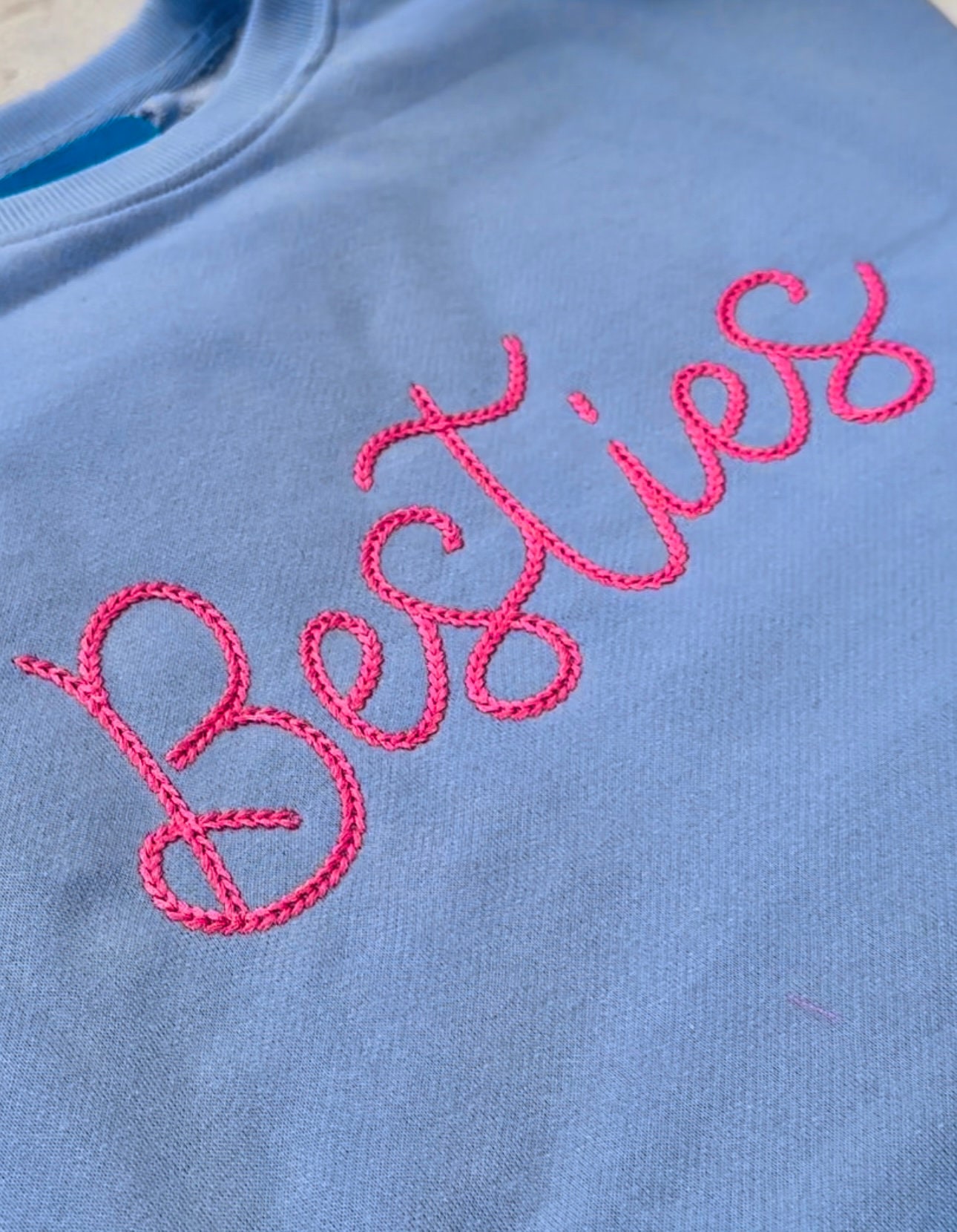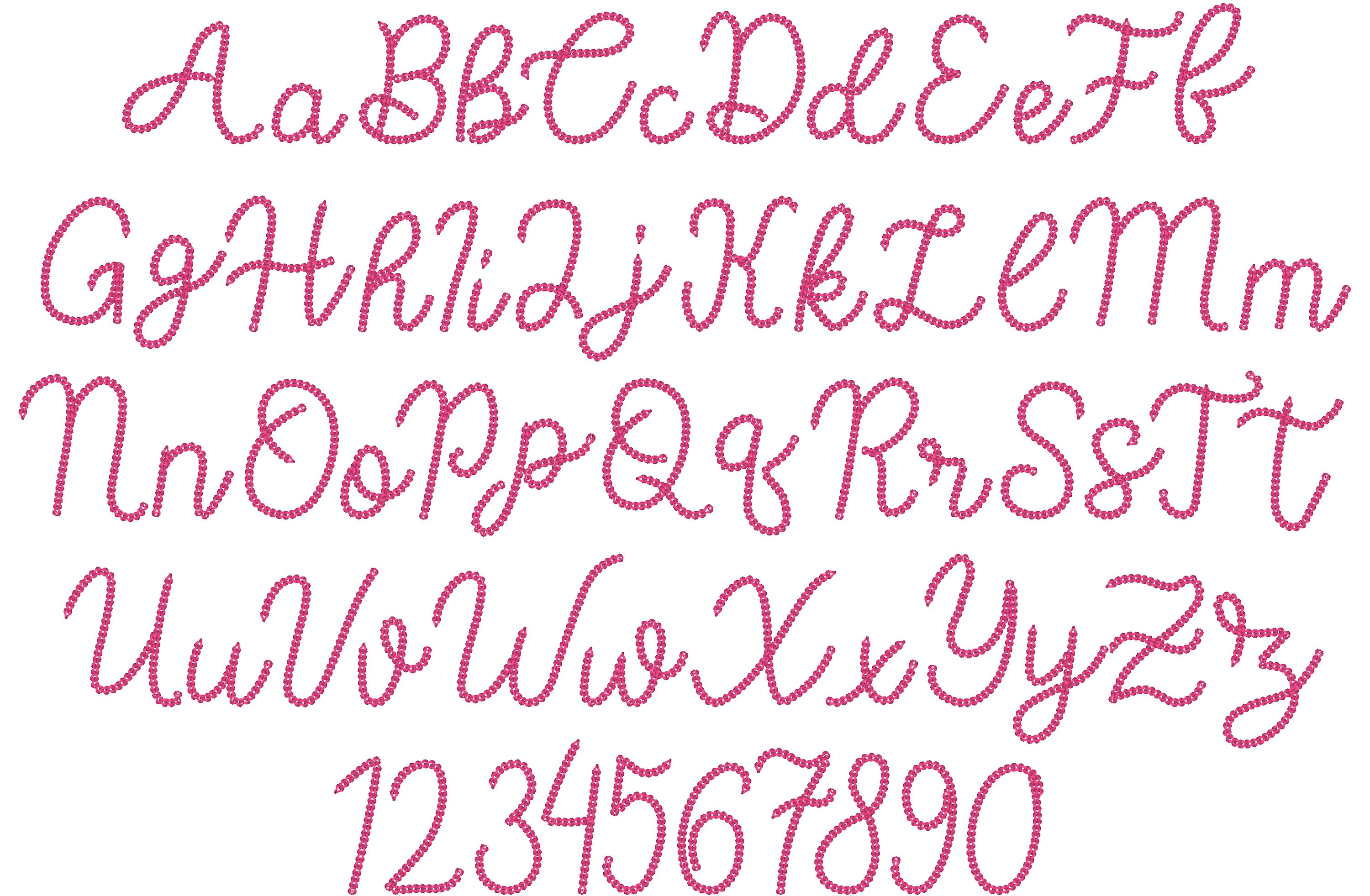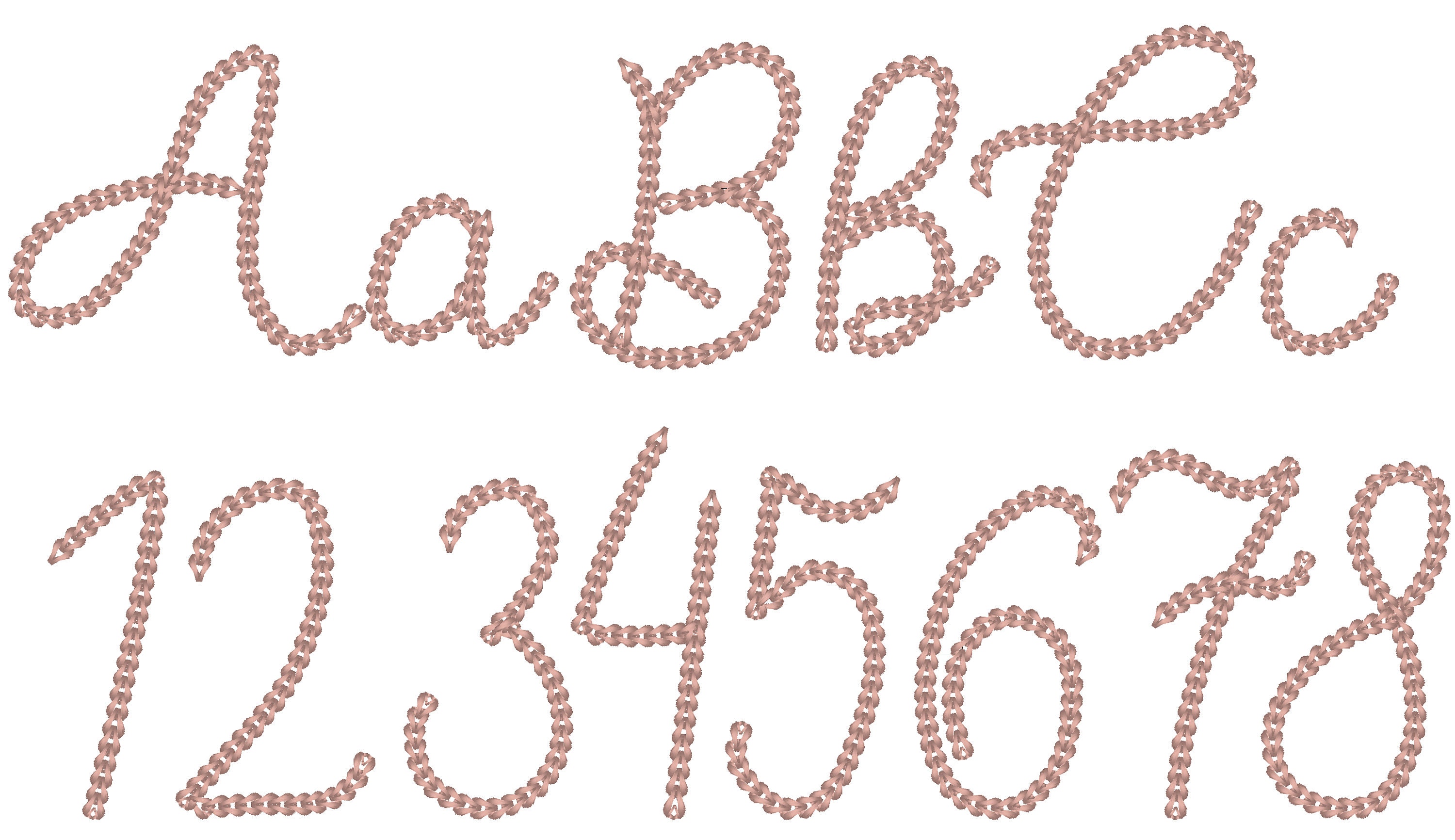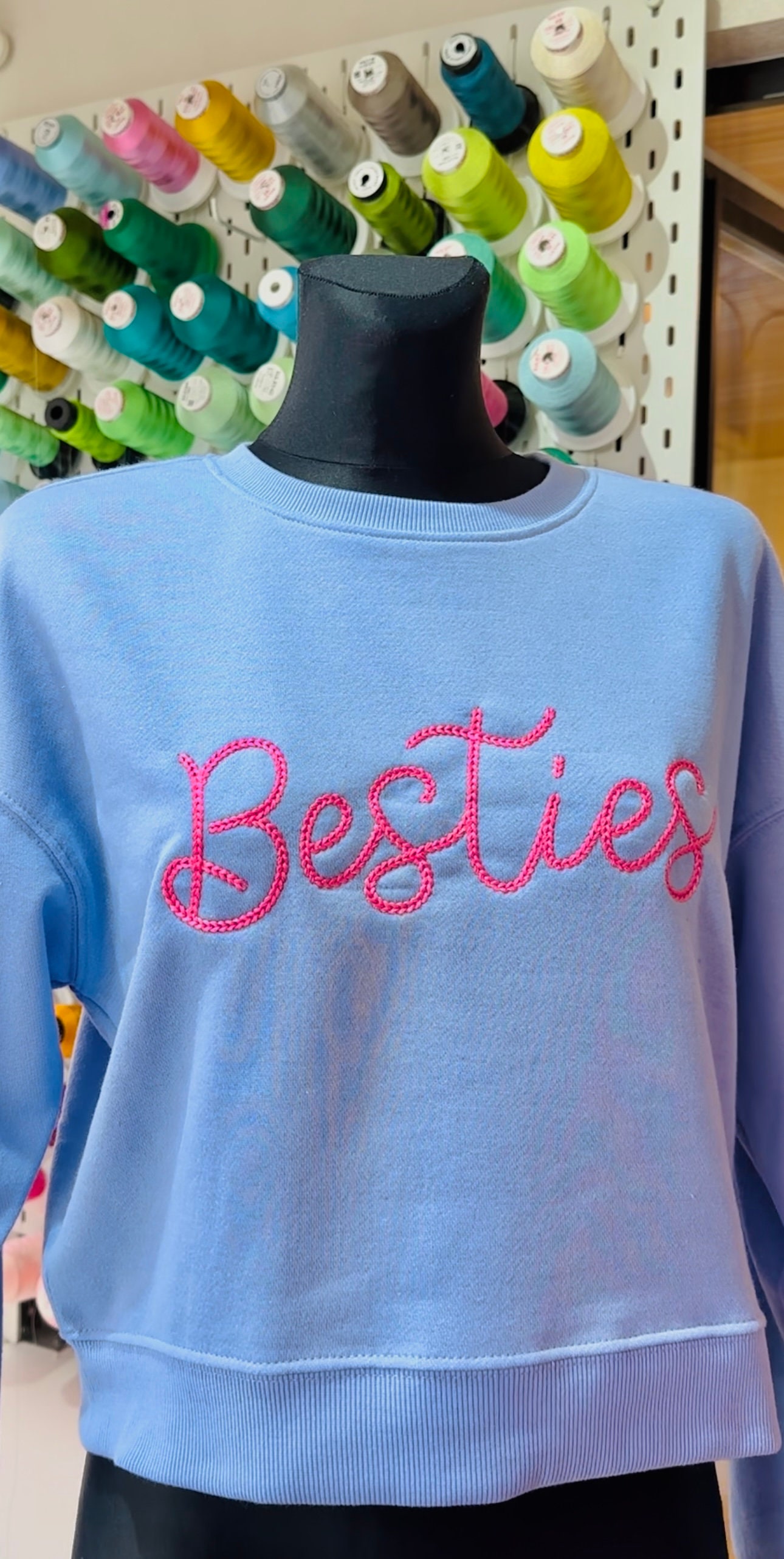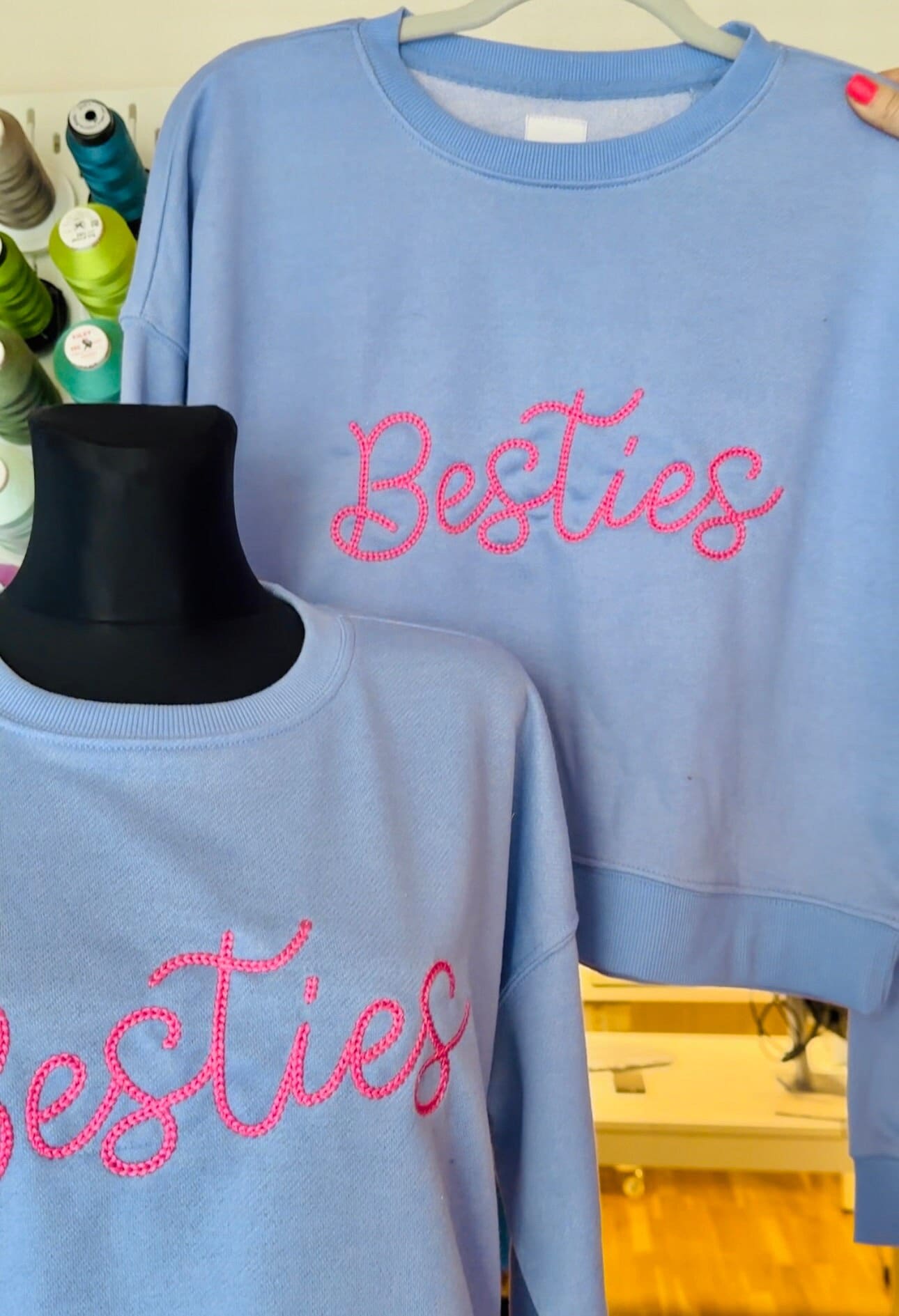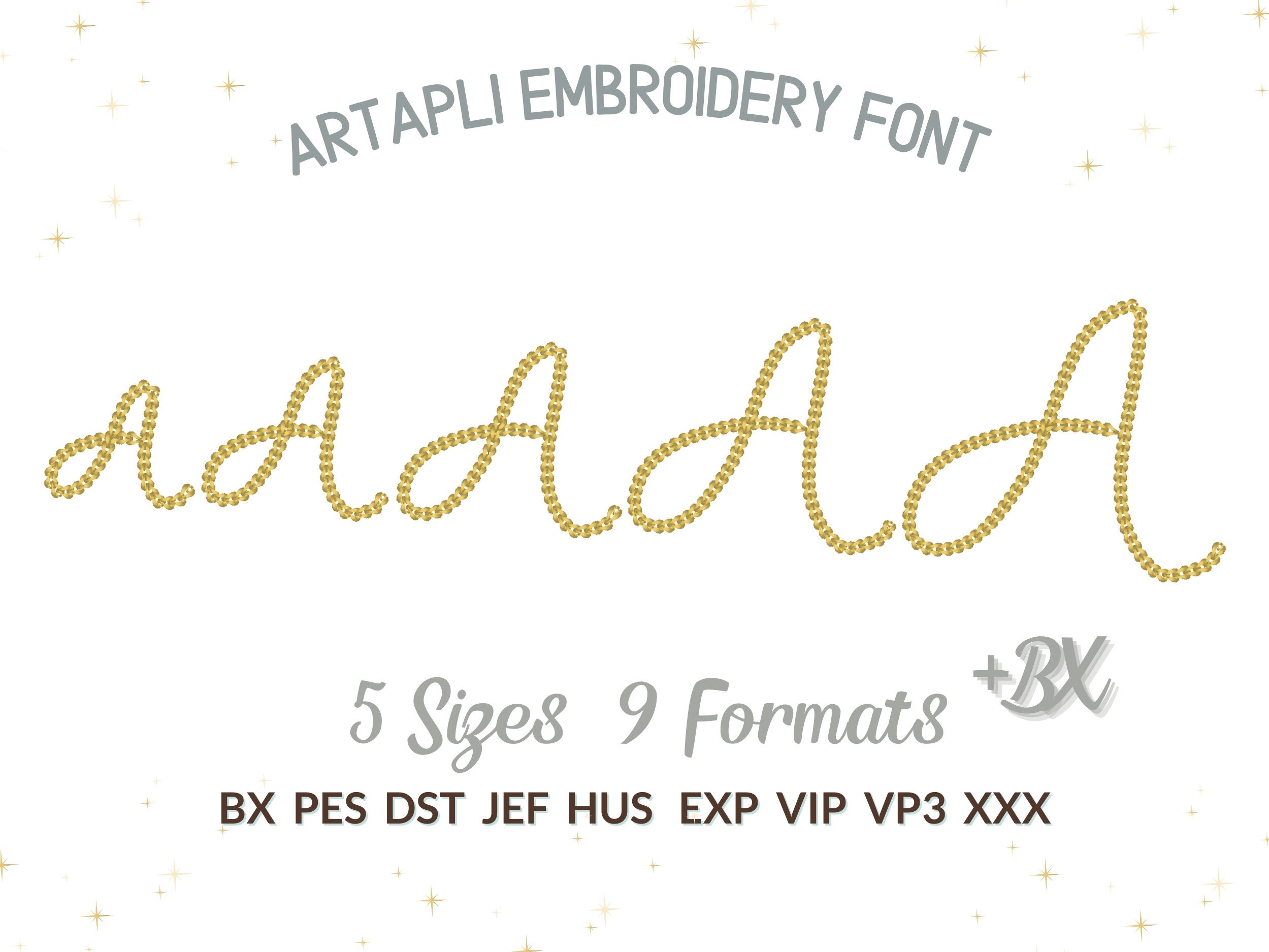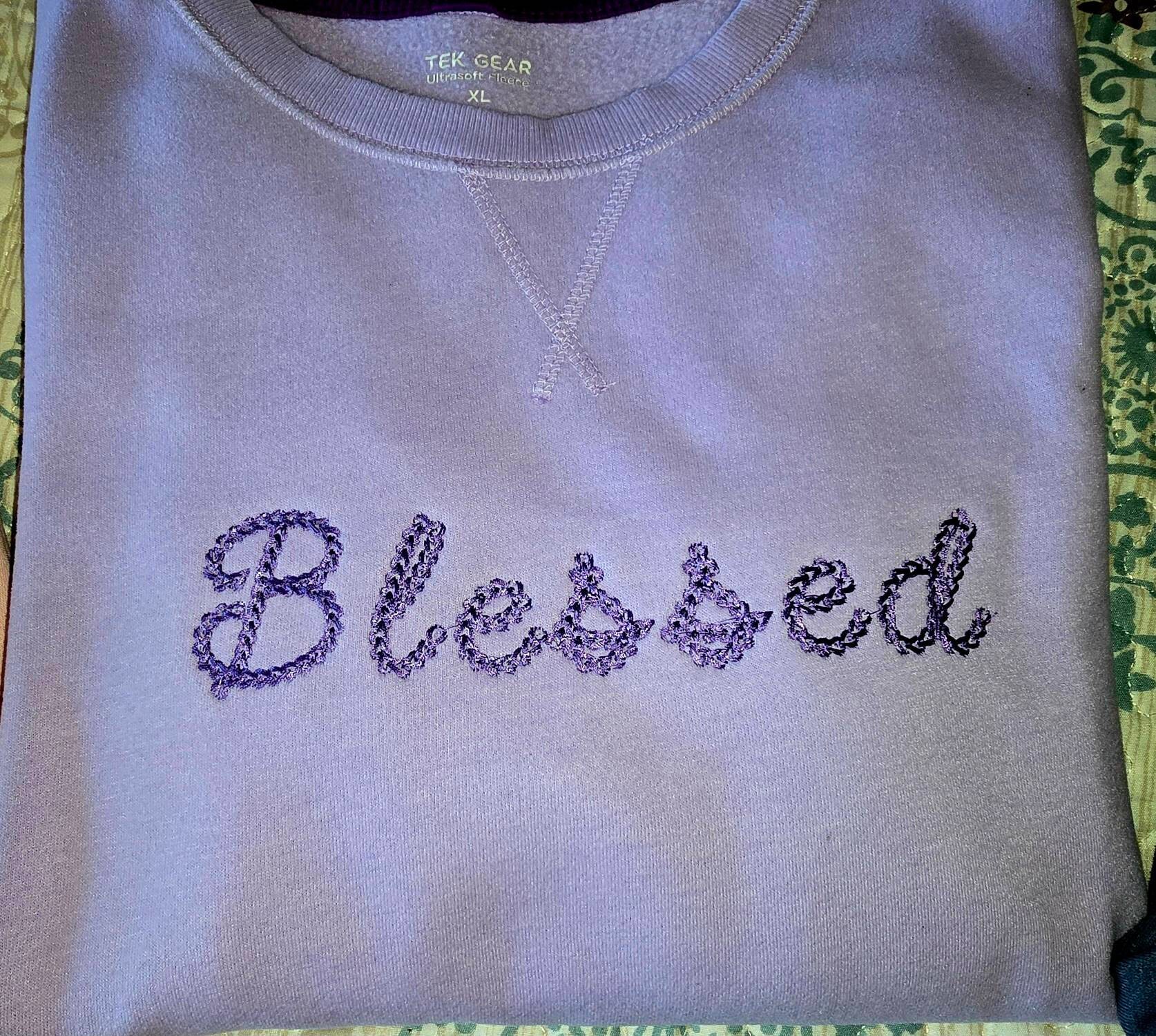
Bold Authentic Hand Chain stitch FONT machine embroidery designs in alphabet letters knit sweater handmade effect chain name, BX included
Entire alphabet: uppercase and lowercase letters Aa-Zz, numbers 0-9.
UPD: 9/23/2024 added punctuation:
^ caret
, comma or accent
. period
" double prime
- dash
~ tilde
/ slash
& ampersand
? question mark